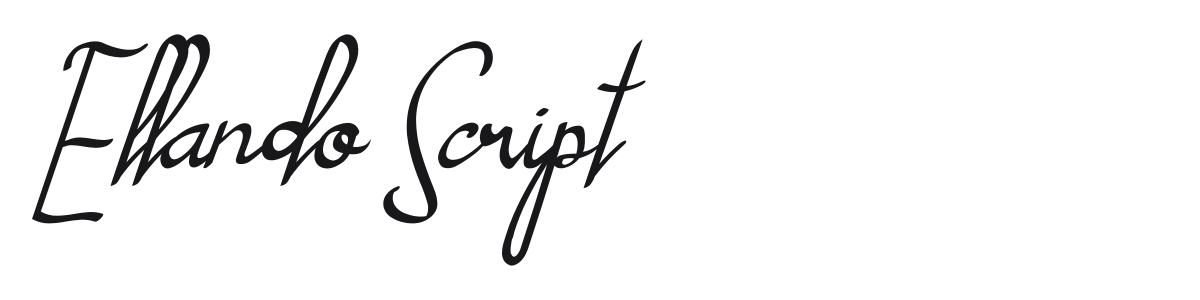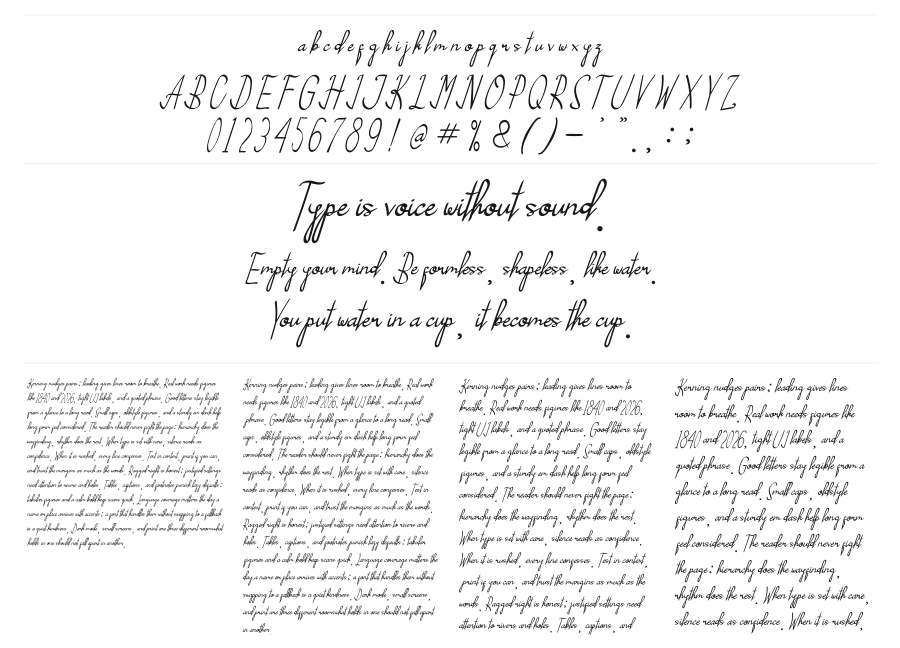
Ellando Script
Ellando Script is a flowing casual script with long looping ascenders and descenders that give it a naturally energetic, handwritten feel. Moderate stroke contrast between thick downstrokes and thin hairlines keeps it legible while maintaining a sense of movement. It works well at display sizes for branding, packaging, and editorial headlines.